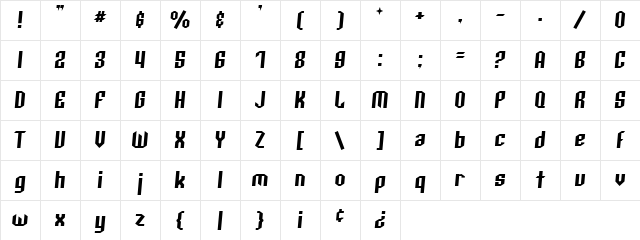
Complete Archery Black Italic glyph index. Displaying only characters natively supported by Archery Black Italic font.
Archery Black is a composed and adaptable typeface that performs quietly and consistently across a wide range of design contexts. The slanted form adds forward momentum and visual energy.
Pro Tip: Use Archery Black for emphasis, pull quotes, and subheadings where its slanted energy can add rhythm to the layout.